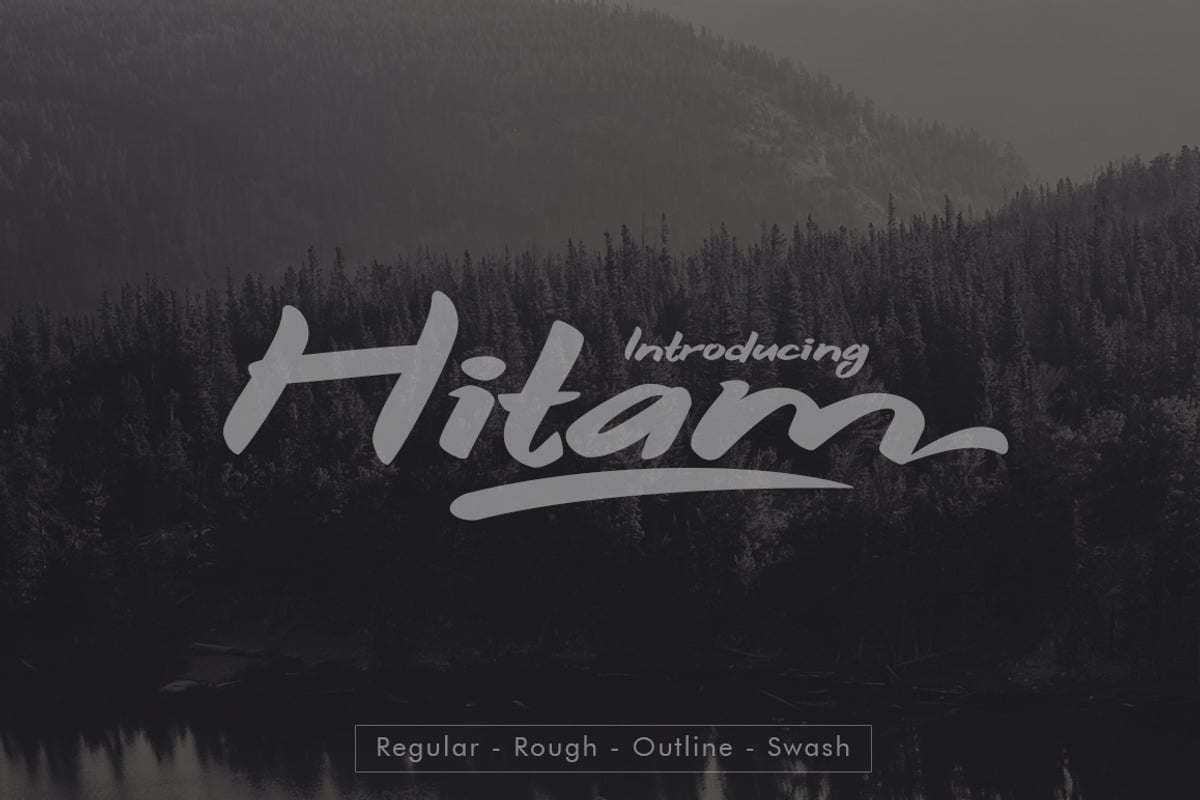
Hitam Bold 3 Font
Transform your designs with Hitam Bold Font - a playful marker pen script that brings quirky charm to any project! This versatile script font delivers a fun, hand-drawn aesthetic that's perfect for logos, branding projects, greeting cards, custom signatures, eye-catching posters, and countless other creative applications. Complete font family includes: Hitam Regular (otf, ttf & woff formats) Hitam Rough (otf & ttf formats) Hitam Outline (otf & ttf formats) Hitam Swash (otf & ttf ...